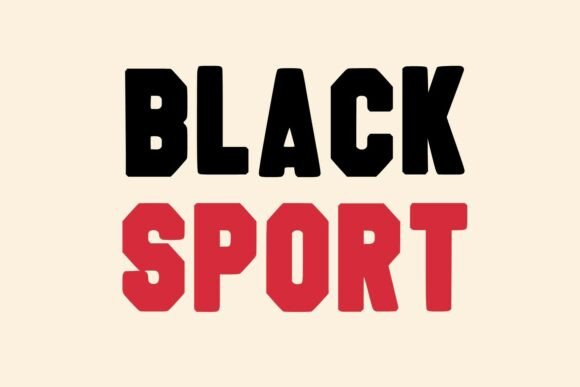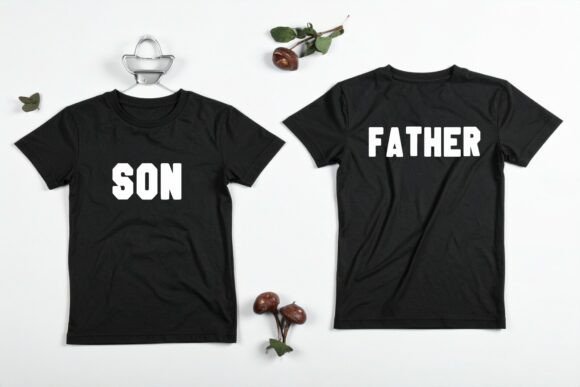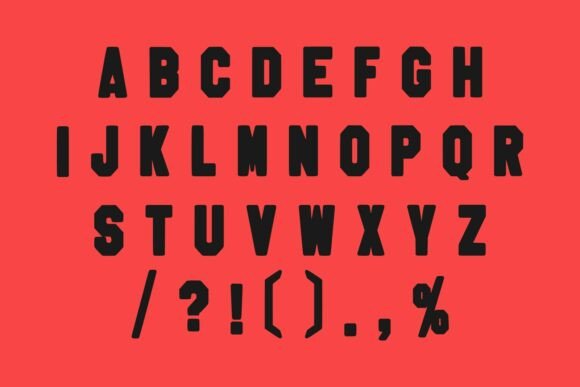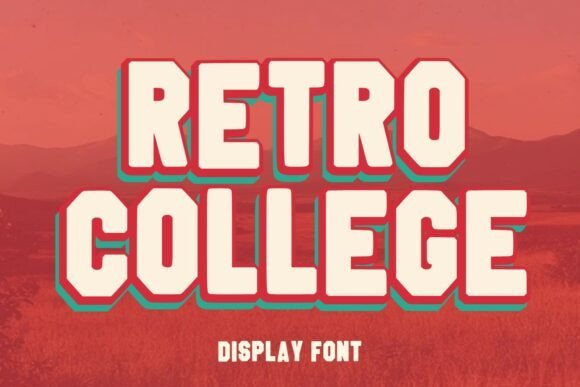
Introduction to Retro Collage Font
Retro College is a bold display font inspired by classic vintage posters, old-school college lettering, and retro typography styles.
Featuring thick characters with strong outlines and a layered shadow effect, this font delivers a powerful and eye-catching look As a high-impact Retro College typeface, it is the ultimate choice for spirit wear, sports team logos, and energetic event flyers.